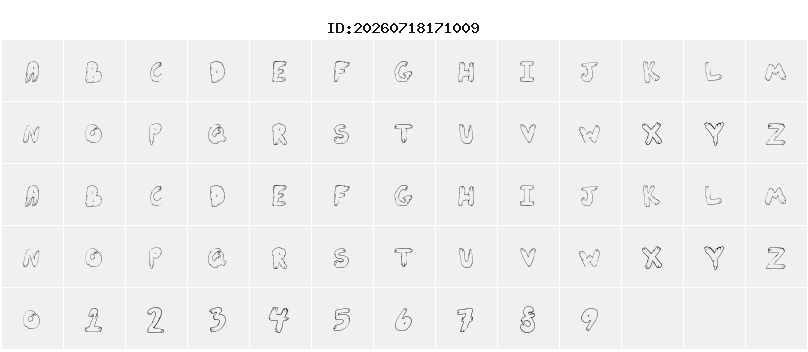
CuteFold Preview
• Font Name: CuteFold
• Designer: Max Infeld
• Manufacturer: Xerographer Fonts
• Description: This font at Ojai,CA handdrawn hand drawn character cute folded
About CuteFold.ttf